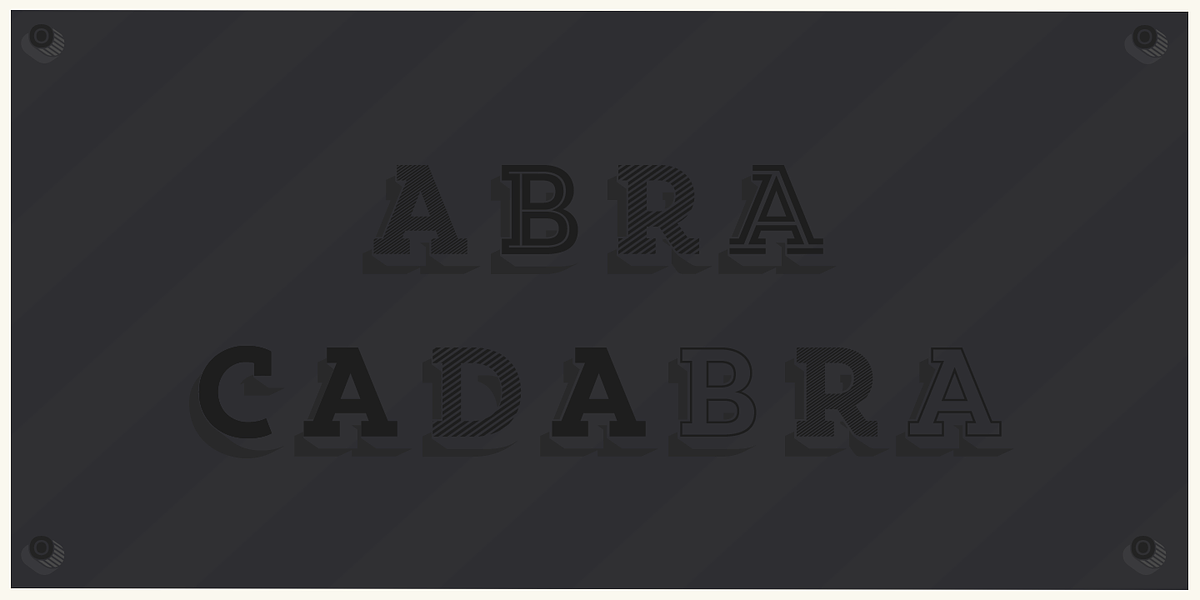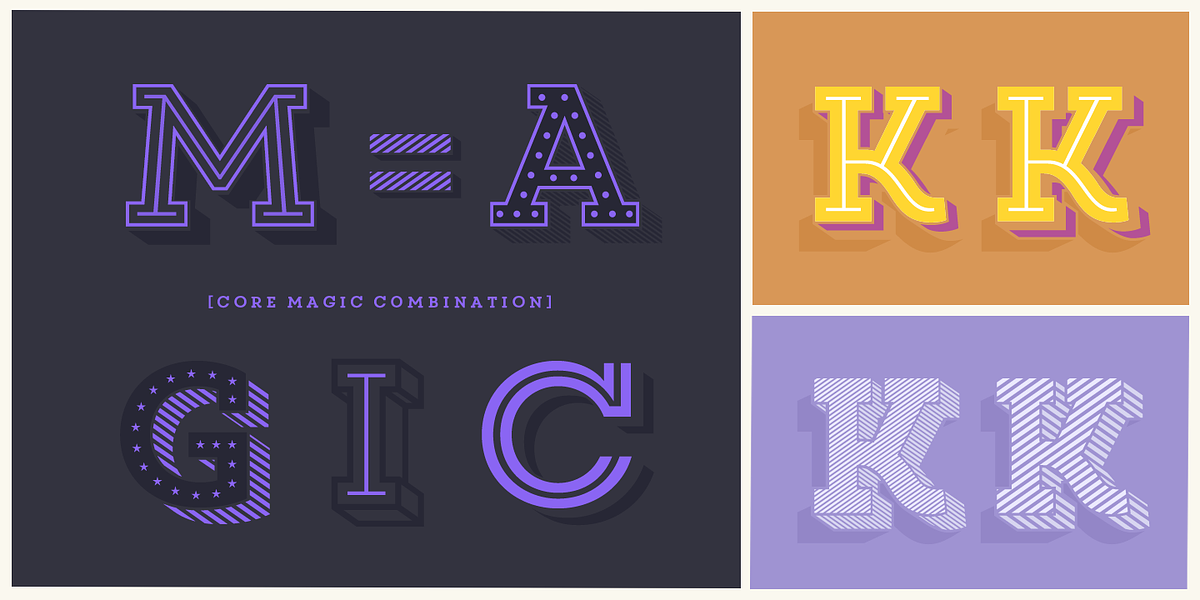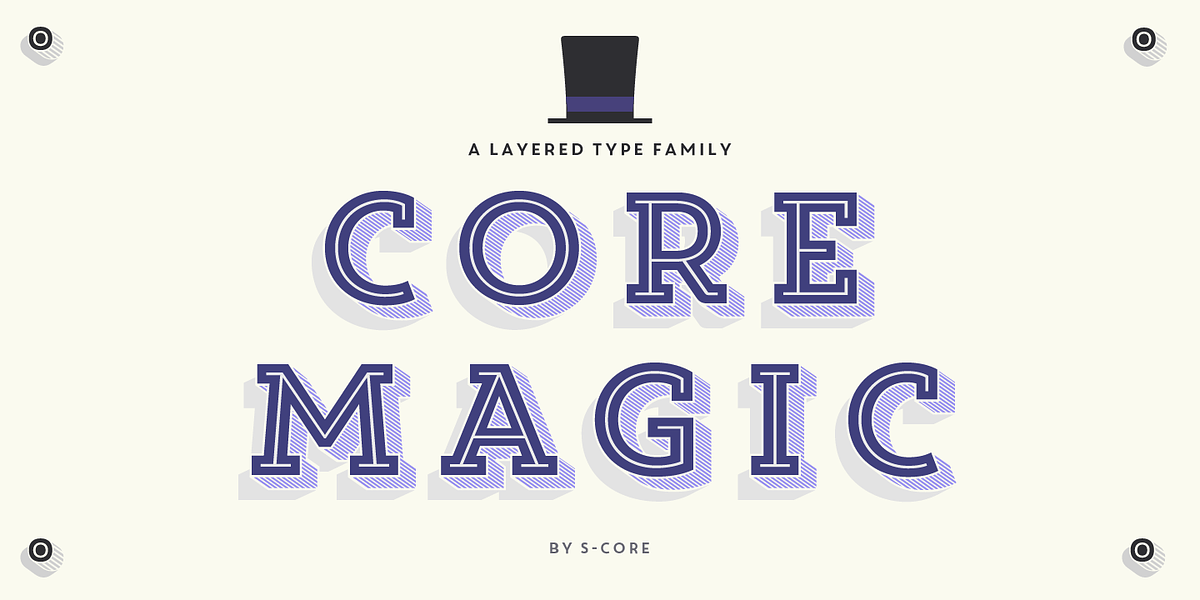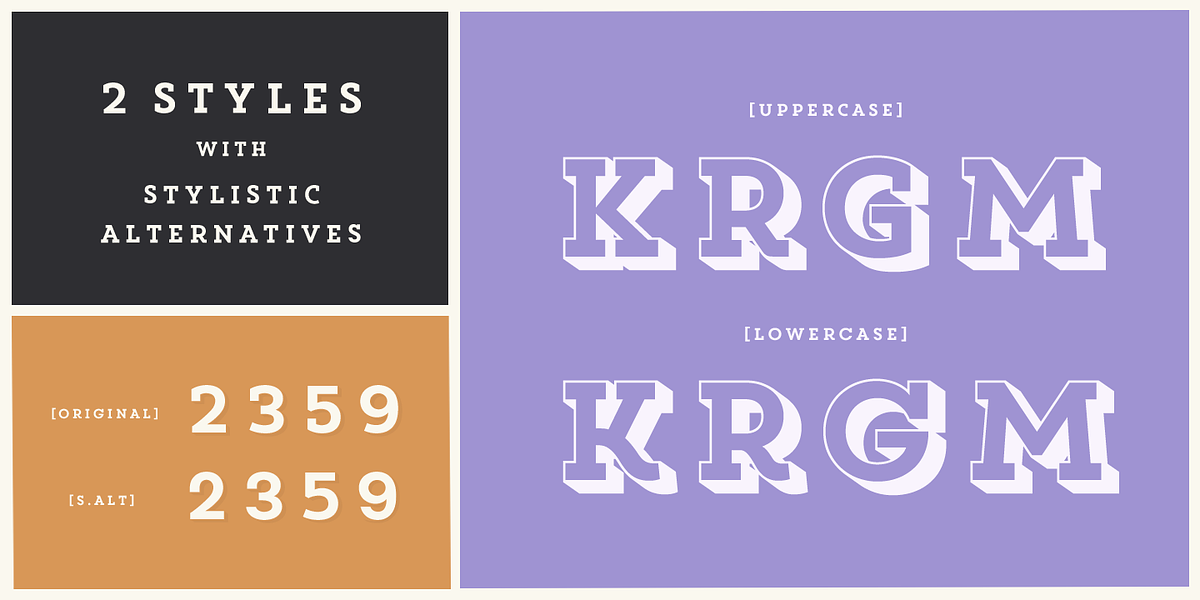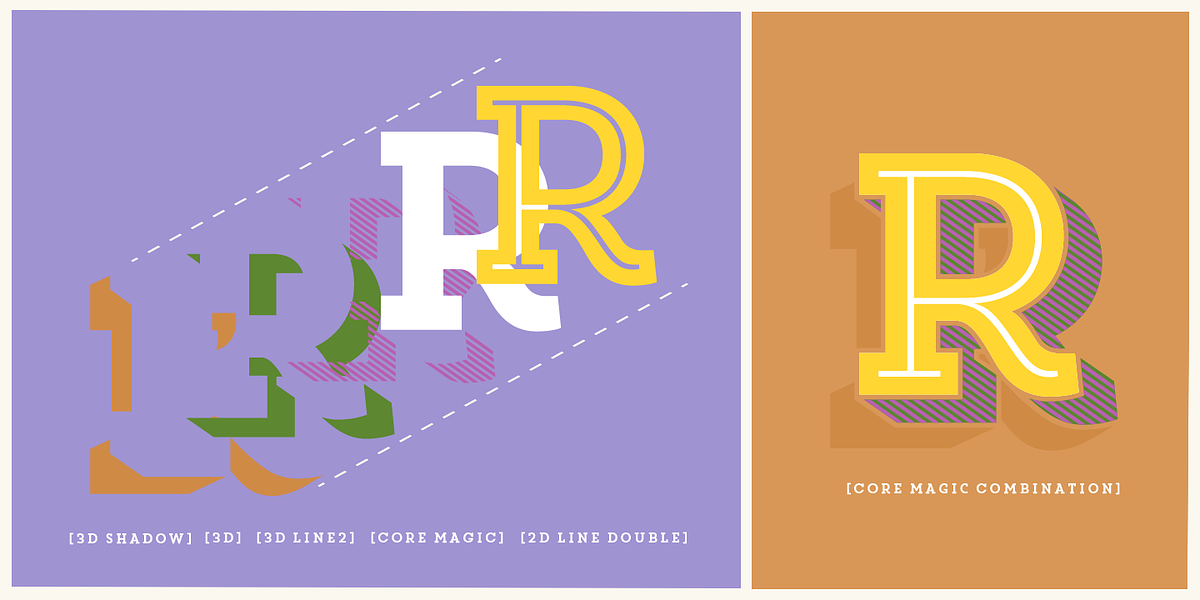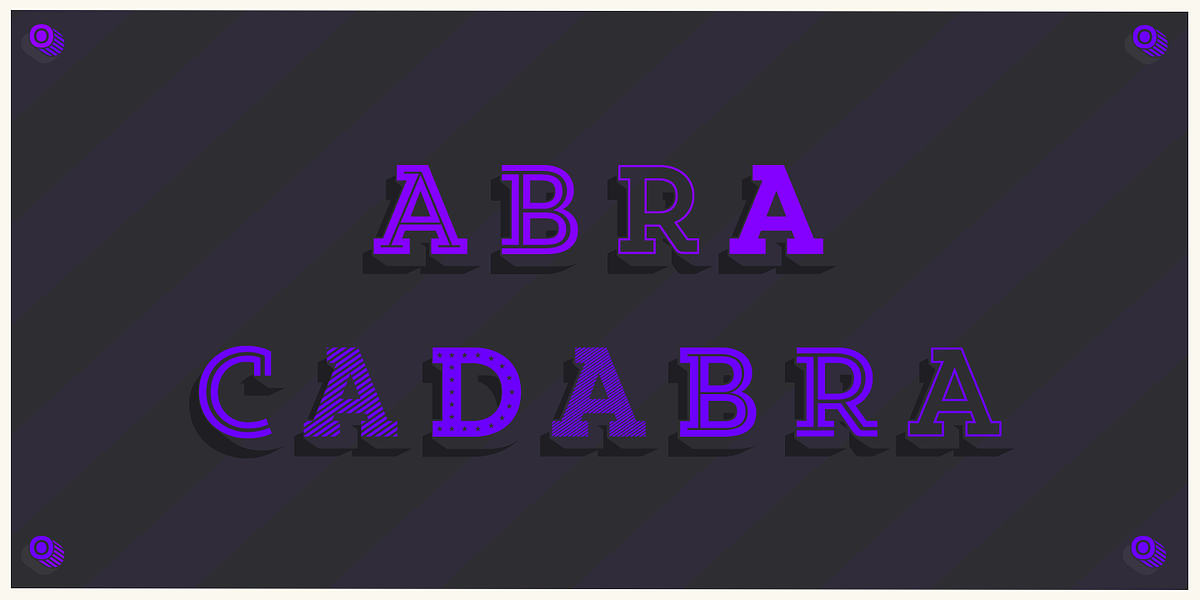
Core Magic
Core Magic is a geometric display slab serif font known for its distinctive layered design and 3D effects. It features both uppercase and lowercase letters with unique counter styles, including open and closed variations accessible through OpenType Stylistic Alternatives. The font's textured appearance, combined with inline elements, dots, and outlines, creates a visually striking and bold aesthetic. Its layered nature allows for countless creative combinations when used in conjunction with the Core Circus typeface family.